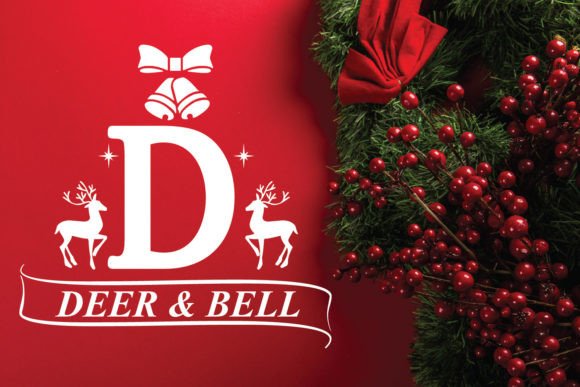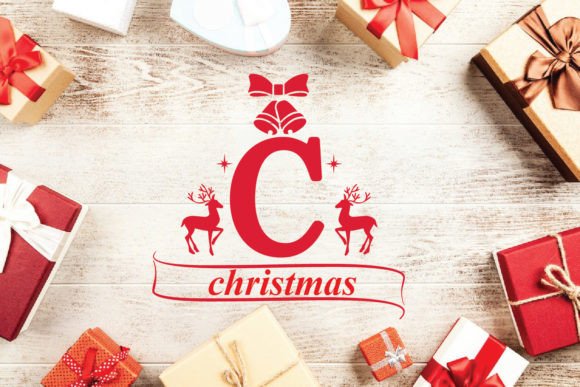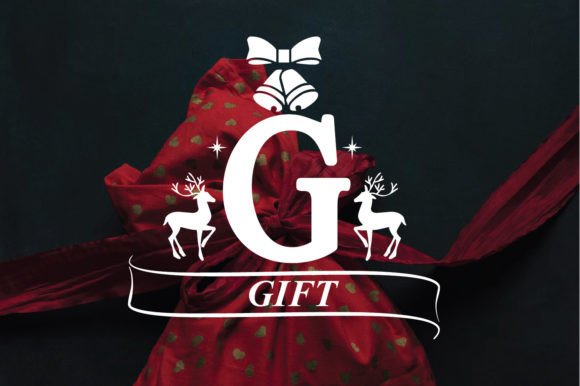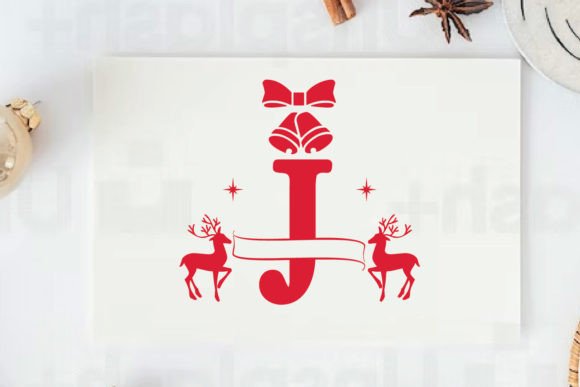
Deer Bell Font
About the Deer Bell Font
Make a bold statement with Deer Bell Font, a powerful and memorable font. Deer Bell is a cute Christmas decorative font with a festive look. This monogram font is perfect for Christmas designs, shirts, crafts, farmhouse decor, craft projects, and more.
Deer Bell’s playful, slightly whimsical style makes it ideal for headlines, short slogans, and festive branding elements. It works exceptionally well on packaging for seasonal goods, holiday-themed posters, and social media graphics. However, its decorative nature makes it unsuitable for body text or UI elements where readability is paramount.
Consider pairing Deer Bell with a clean sans-serif like Open Sans for a balanced contrast, or a more rustic serif like Playfair Display for a cohesive yet varied Christmas aesthetic. For a touch of elegance, a simple script font could add refinement.
The font exudes a cheerful, friendly personality, perfect for brands focused on warmth, charm, and seasonal cheer. Avoid using it for projects requiring a sophisticated or minimalist feel.
Deer Bell Font Usage Examples
Deer Bell Font Example